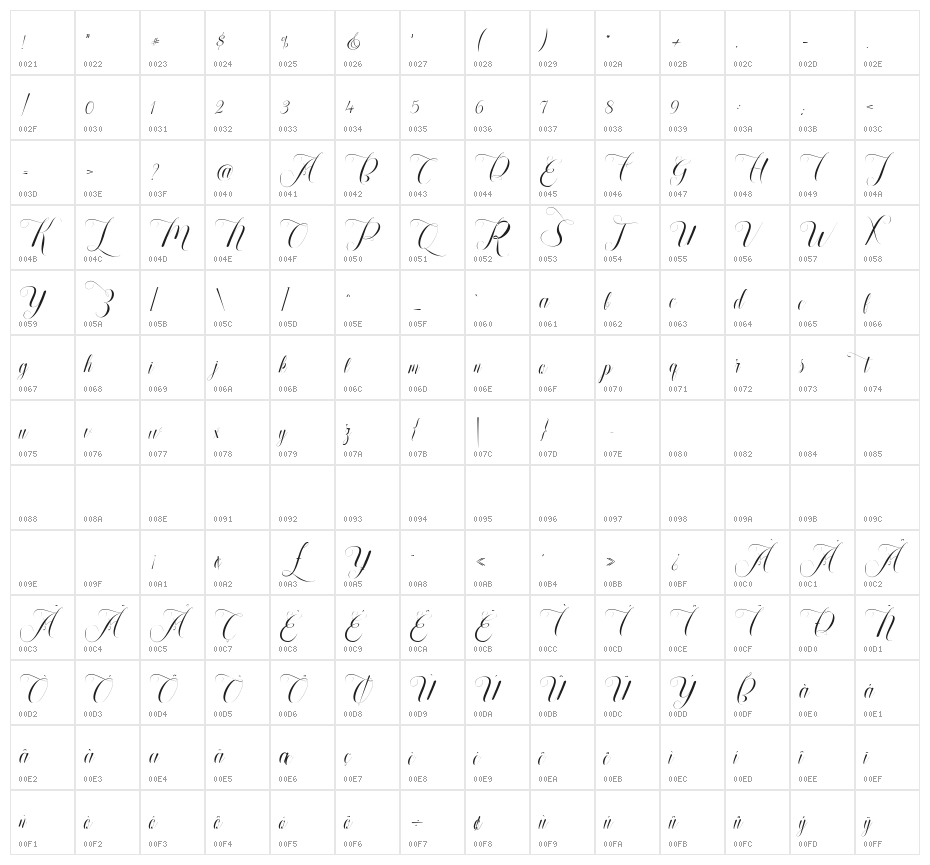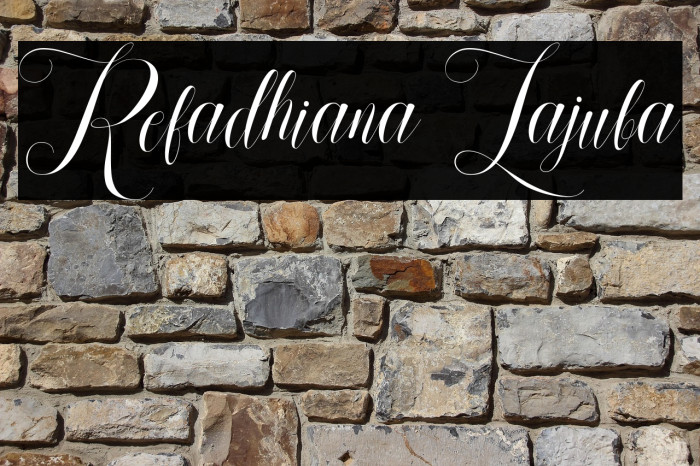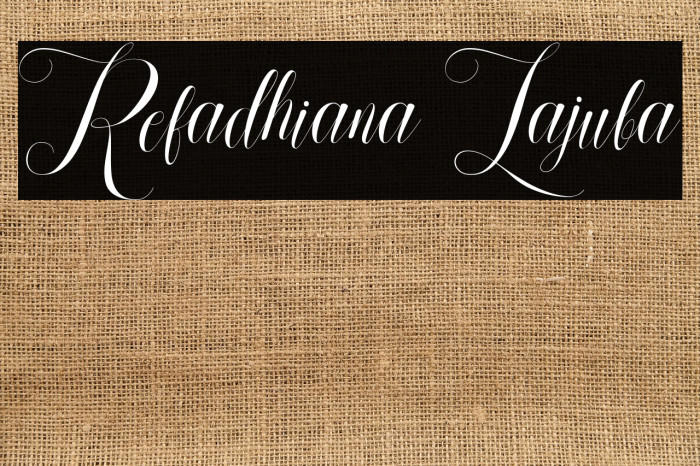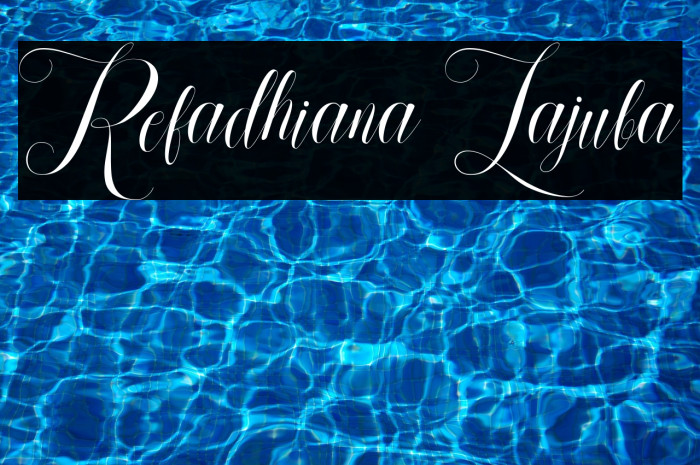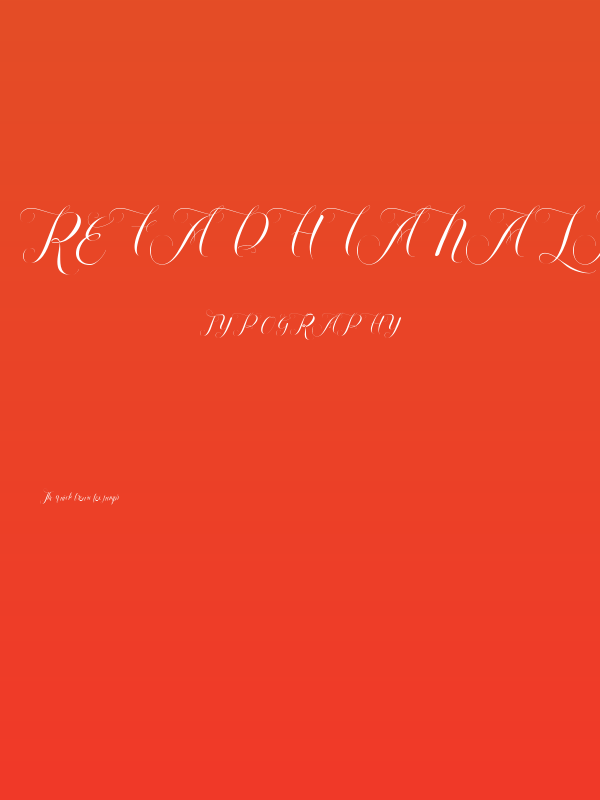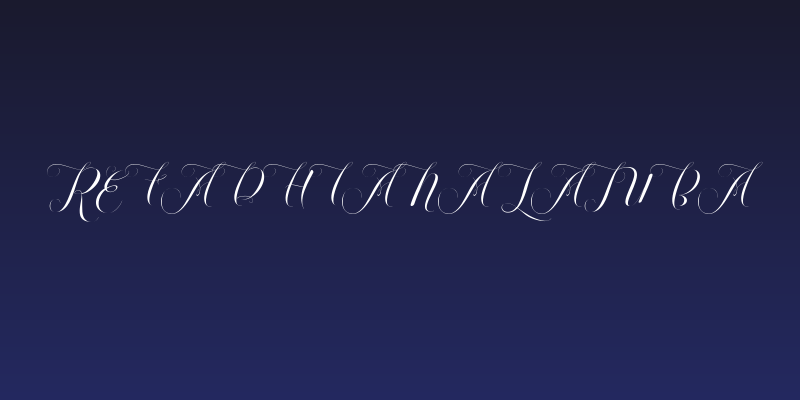
Refadhiana Lajuba Font
Refadhiana Lajuba Description
This elegant script font features a flowing, cursive style with intricate swashes and flourishes that add a touch of sophistication and grace. The uppercase letters are particularly ornate, with extended loops and curves that create a sense of movement and fluidity. The lowercase letters maintain a consistent style, with smooth connections between characters, enhancing the overall readability despite the decorative elements. The numerals and special characters are designed to match the script's aesthetic, ensuring a cohesive look across all text. This font is ideal for projects that require a luxurious and refined appearance, such as wedding invitations, upscale branding, or elegant packaging.
| Overall Style | Elegant, Decorative |
| Proposed Projects | Wedding invitations, luxury branding, elegant packaging, greeting cards. |